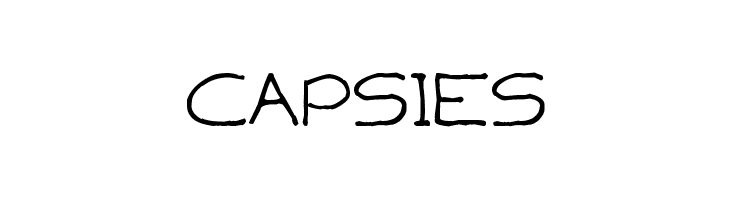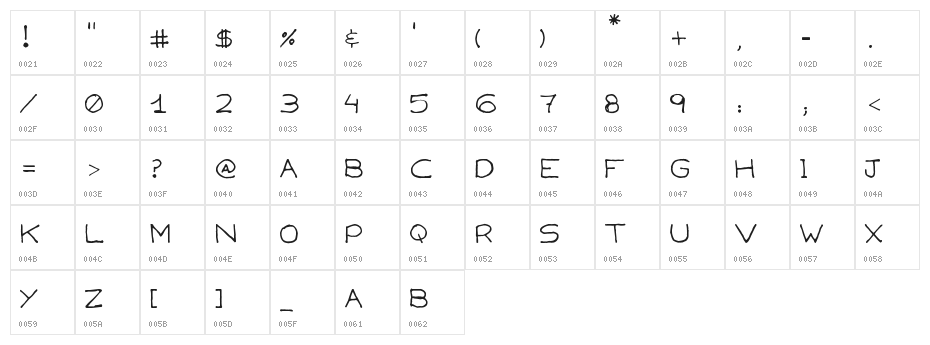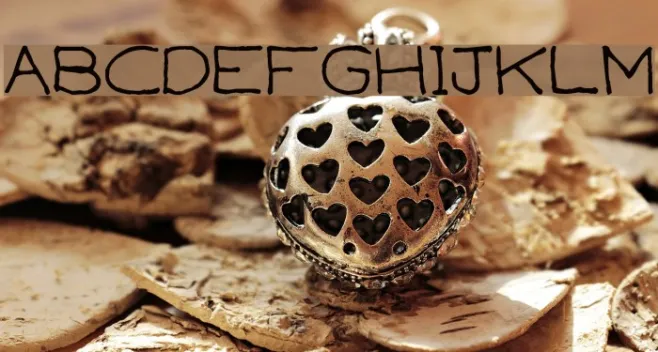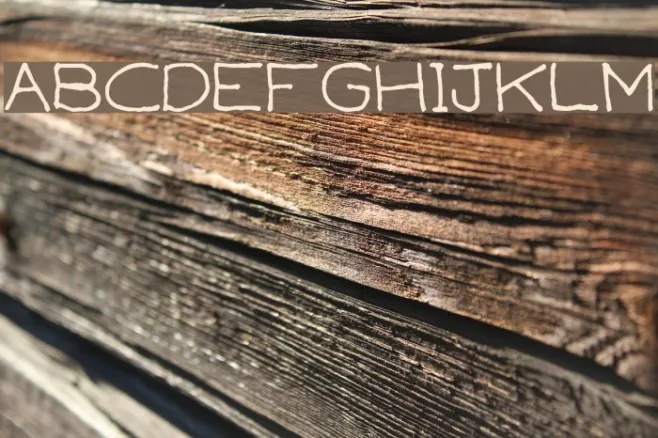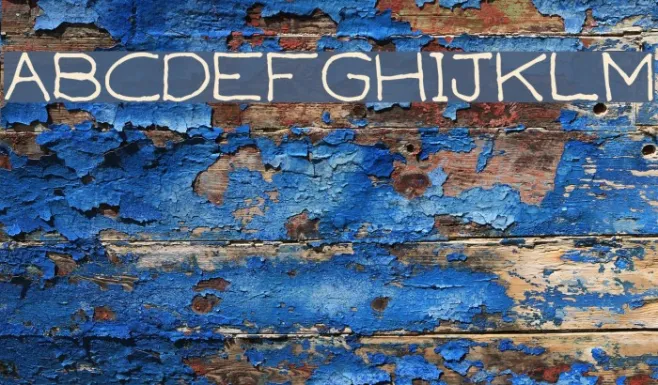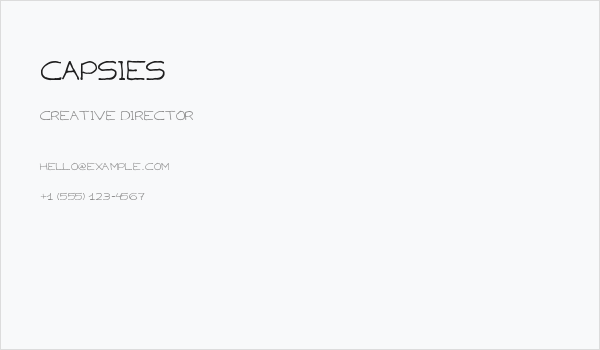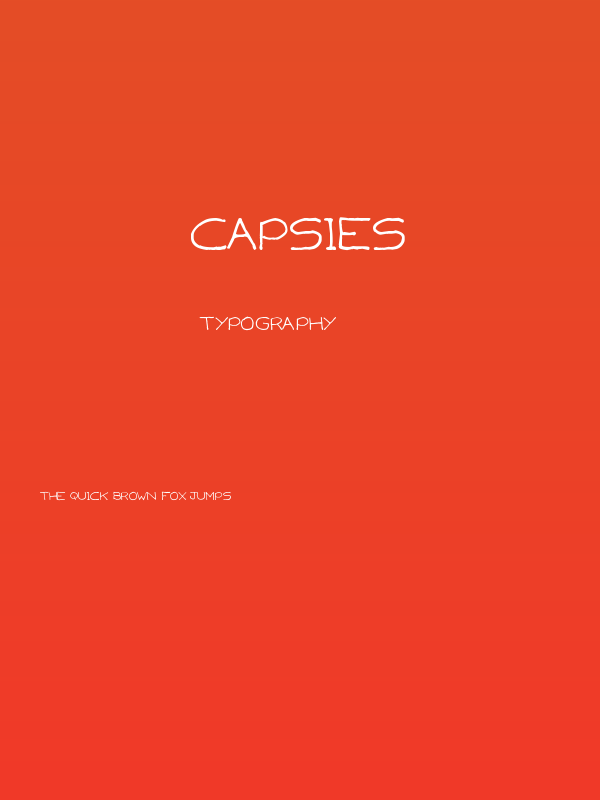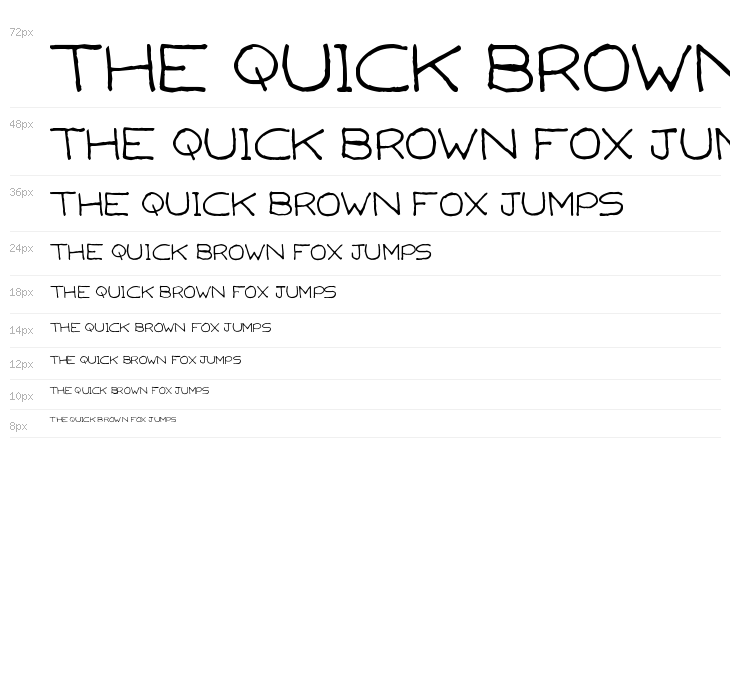
Capsies Font
Capsies Description
This font features a playful and informal handwritten style, characterized by its irregular and slightly wavy strokes. Each letter has a unique, hand-drawn appearance, giving it a casual and approachable feel. The uppercase and lowercase letters maintain a consistent style, with rounded edges and a slight tilt, enhancing the whimsical nature of the font. The numbers and special characters follow the same design principles, ensuring a cohesive look across all glyphs. This font is ideal for projects that require a personal touch, such as invitations, greeting cards, or creative branding materials.
| Proposed Projects | Ideal for invitations, greeting cards, creative branding, and personal projects. |